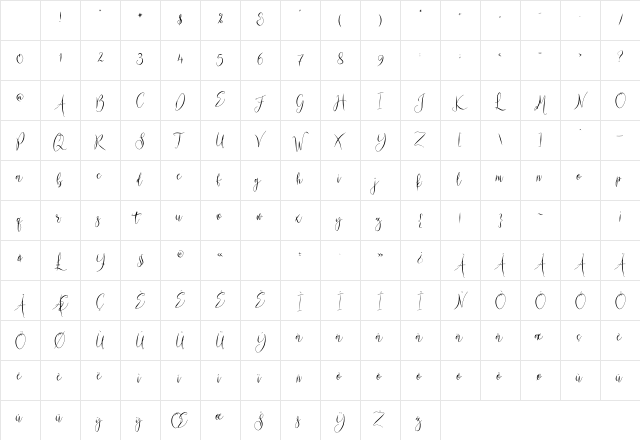
Complete Pariss Hillton Regular glyph index. Displaying only characters natively supported by Pariss Hillton Regular font.
Pariss Hillton is a composed and adaptable typeface that performs quietly and consistently across a wide range of design contexts.